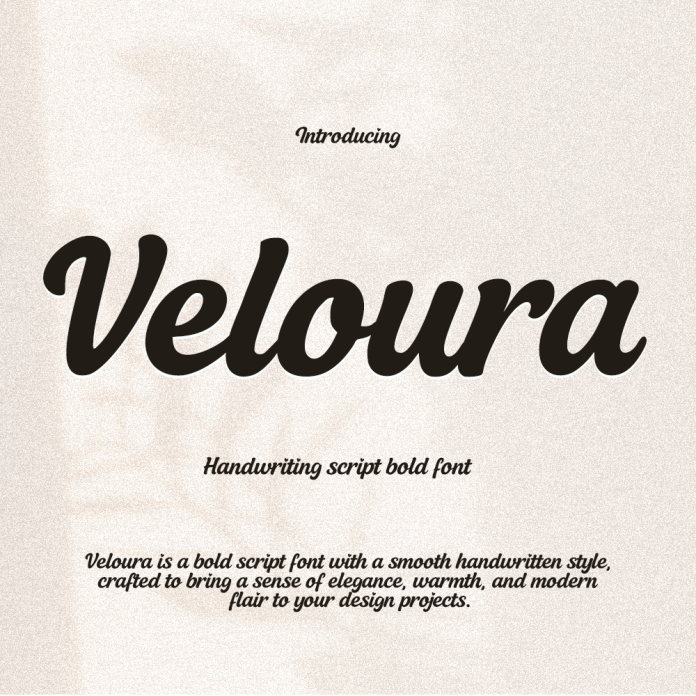
Veloura is a bold script font with a smooth handwritten style, crafted to bring a sense of elegance, warmth, and modern flair to your design projects. Each letter is carefully shaped with balanced curves, offering a clean yet organic look that flows naturally.